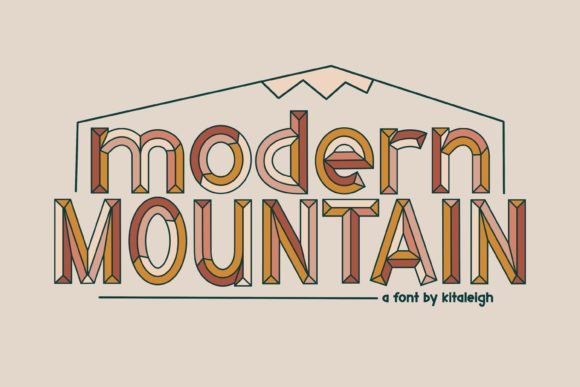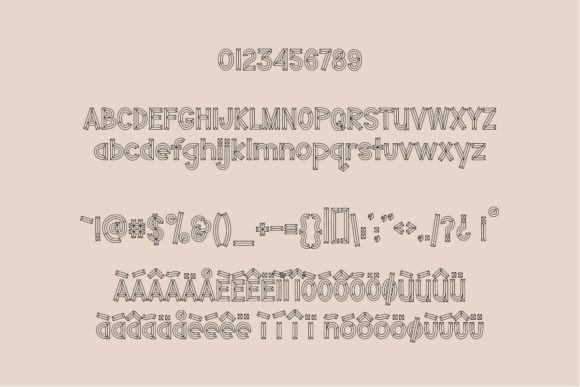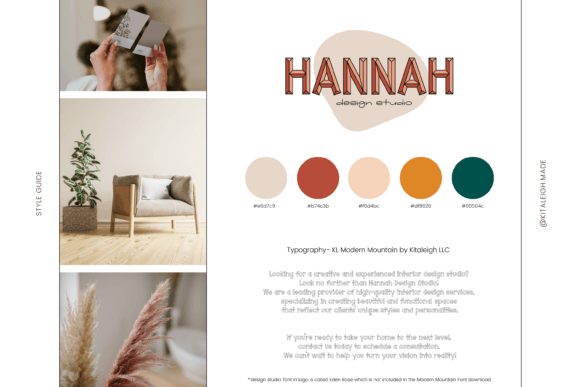
Modern Mountain Font
About the Modern Mountain Font
From logos to headlines, the Modern Mountain Font is the perfect choice for making a lasting impression. Modern Mountain is a bold and geometric display font inspired by the great outdoors and the beauty of mountain ranges. With its clean lines and layered 3D effects, this font is perfect for creating unique logos, posters, or branding materials that need a strong and rugged vibe. The font comes with a full set of uppercase letters, numbers, punctuation, and multilingual support, making it versatile for various design projects. Whether you’re designing for outdoor adventure themes or creating bold statement pieces, Modern Mountain is sure to elevate your designs with its contemporary and robust style.
Modern Mountain Font Example